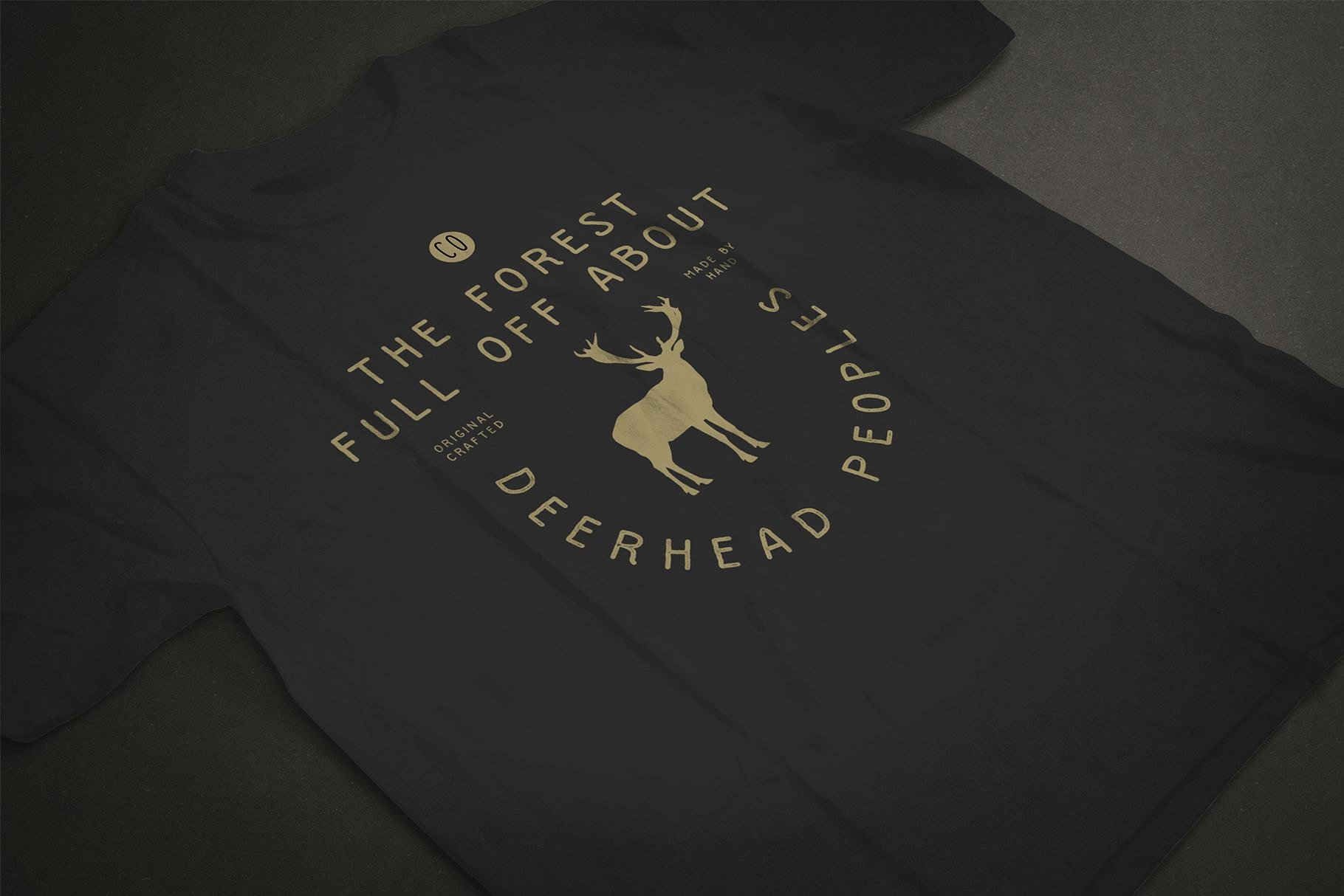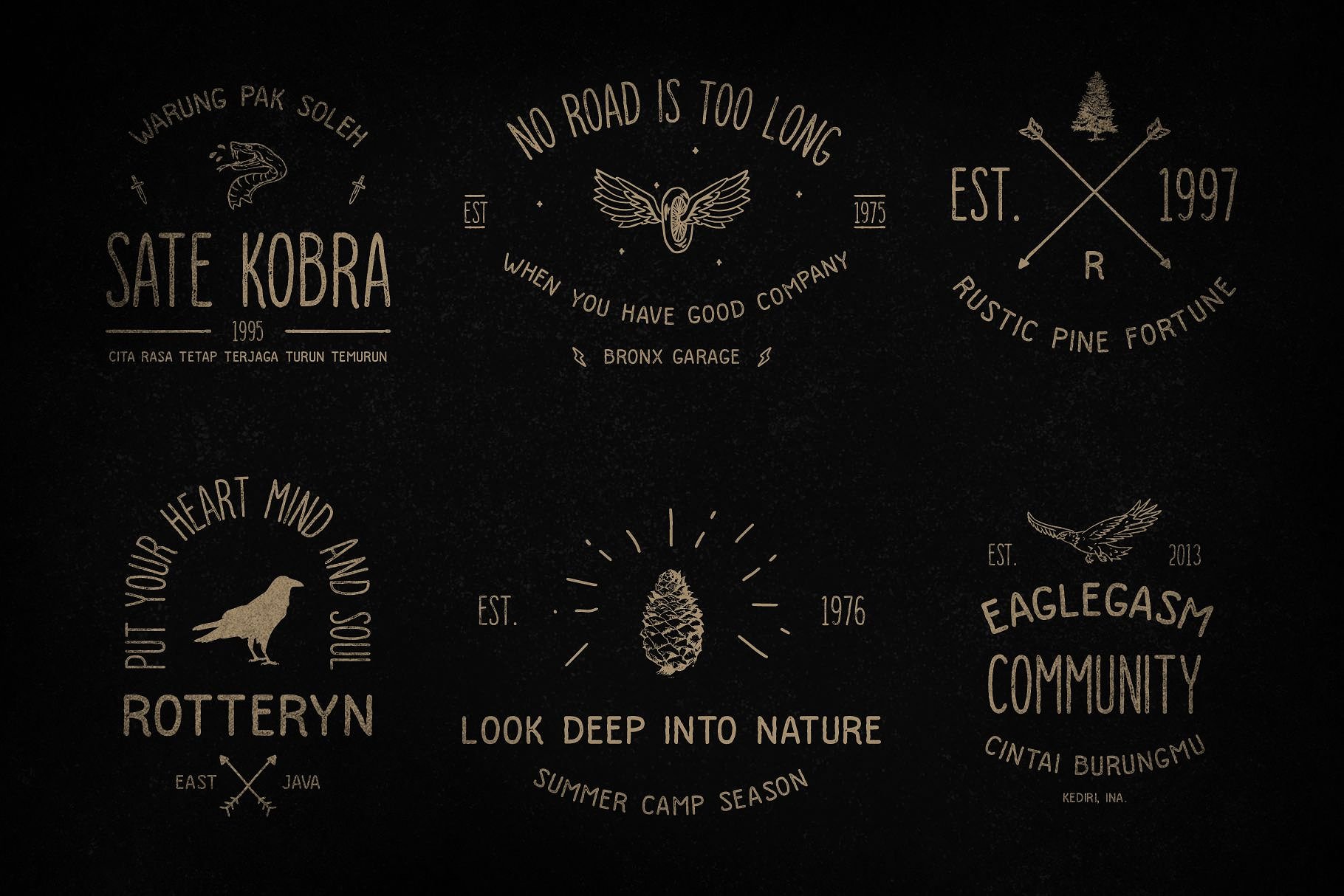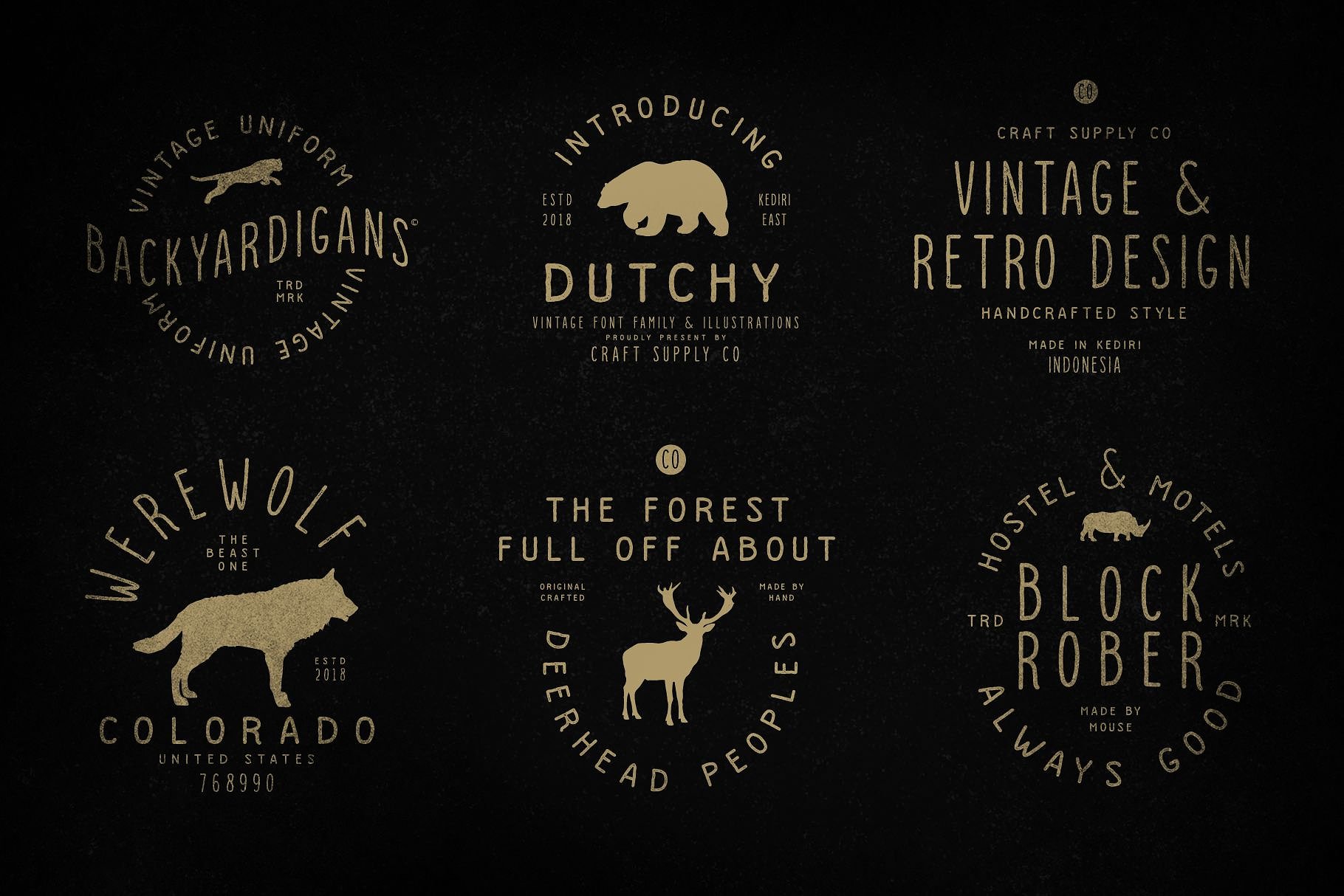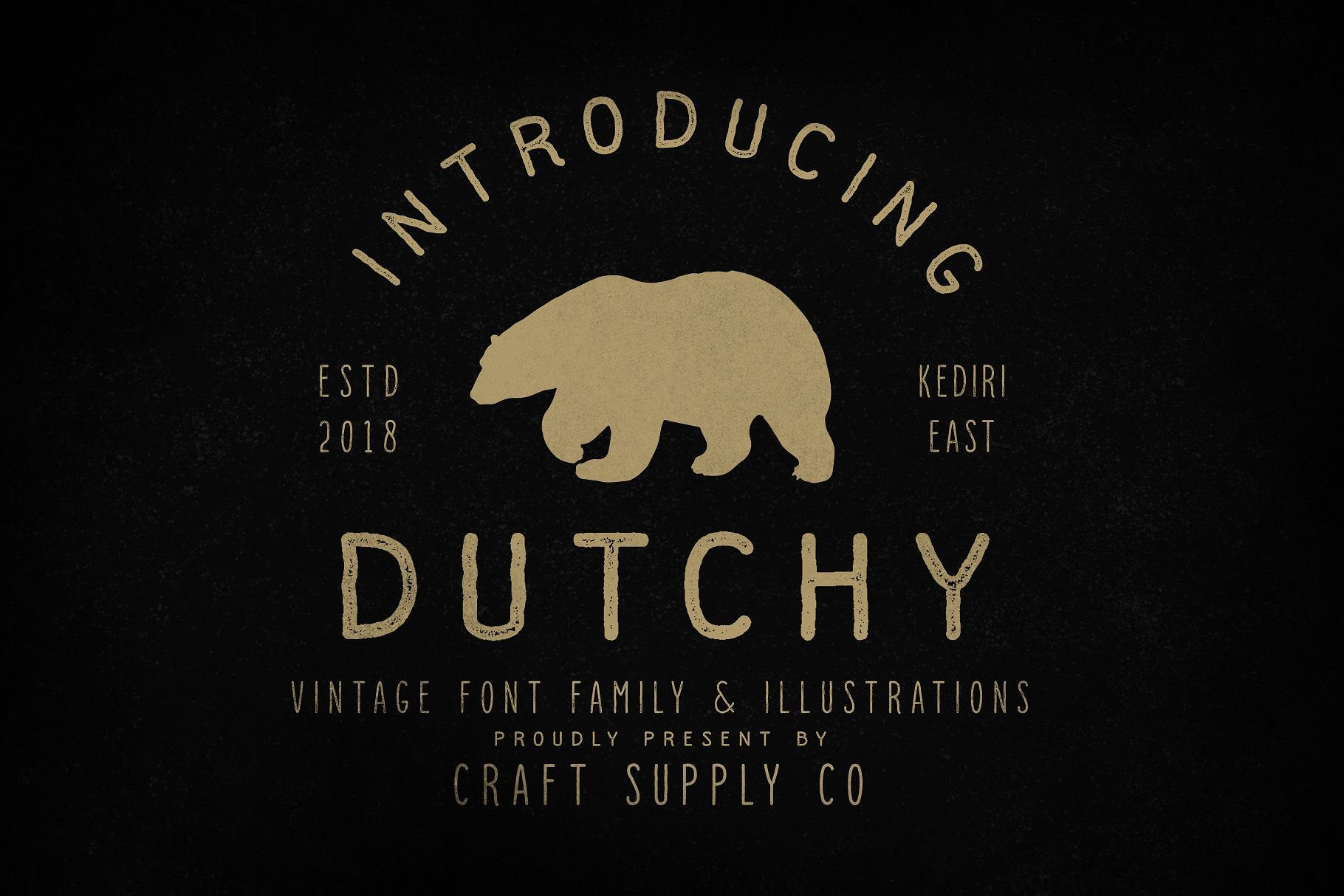
Dutchy Vintage Font Family
Hello friend. A concept of touch of strength, retro and vintage. Introducing Dutchy Font. Dutchy – Vintage Type Family + Illustrations includes 4 Style Fonts. It can be used to create almost all types of design projects like print materials. Just use your imagination and some graphic design set in Extras, your project will become more alive and look great than ever with one of the Dutchy – Vintage Type Family.